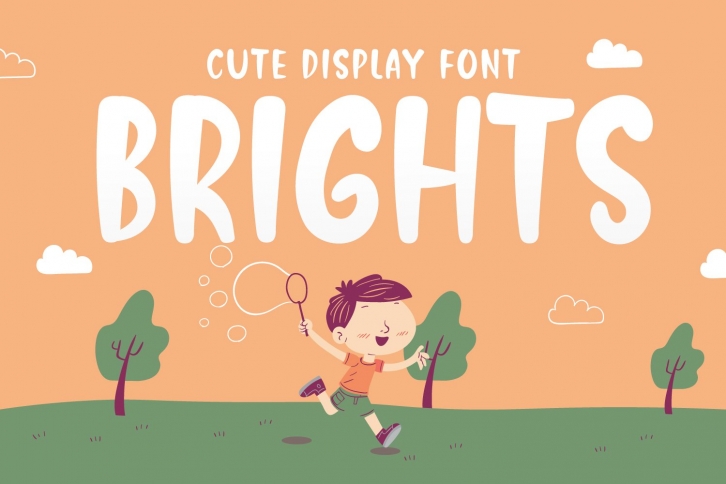
Brights - Cute Display Font Download
Brights is a gorgeous font that was realeased on January 21, 2021. The font can be used in many style contexts and design environments. Perfect for invitations, magazines, websites, logos, and more! It was designed by titik creative and the file size is 14.52 MB. Thanks for checking out this font!